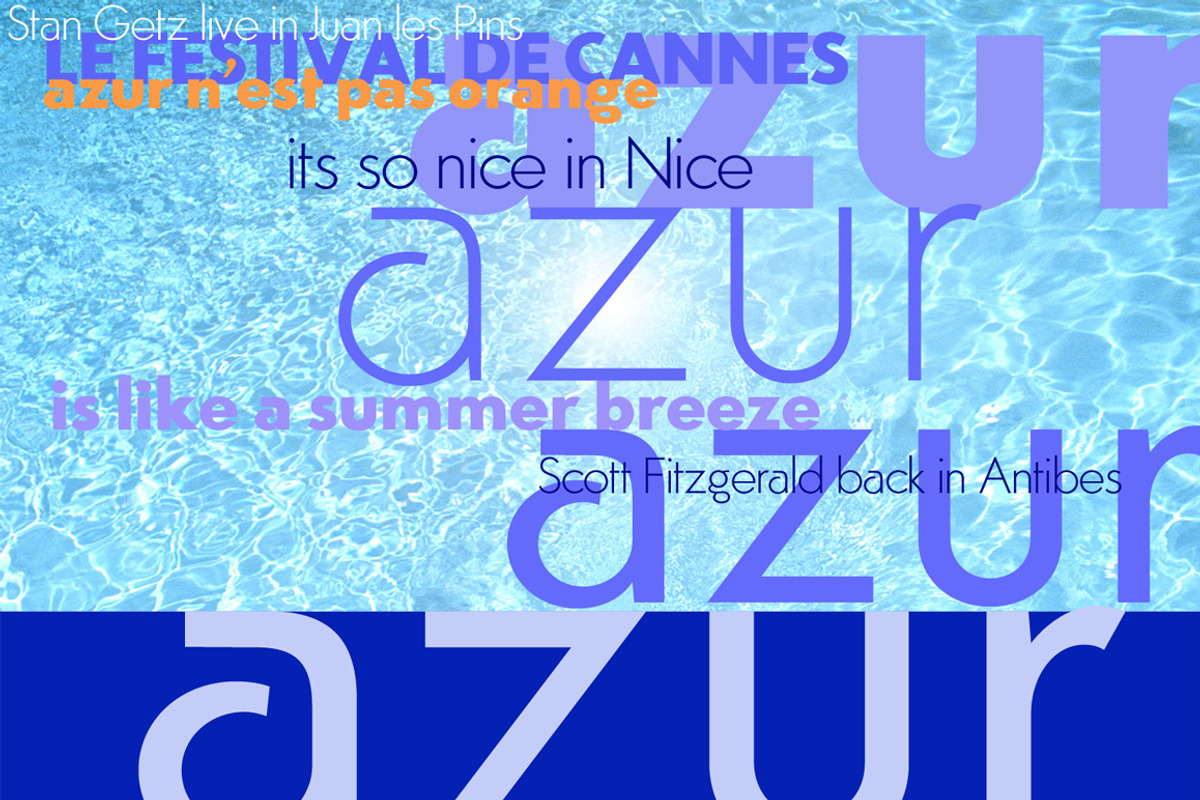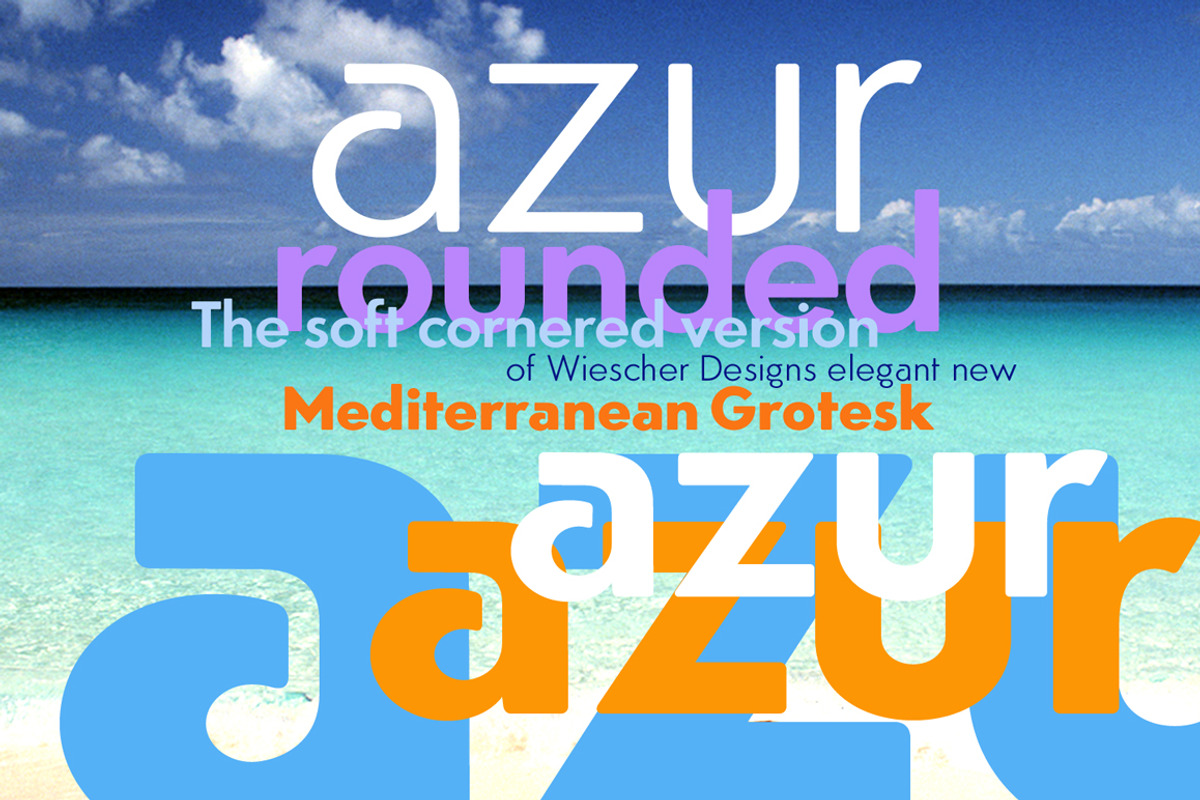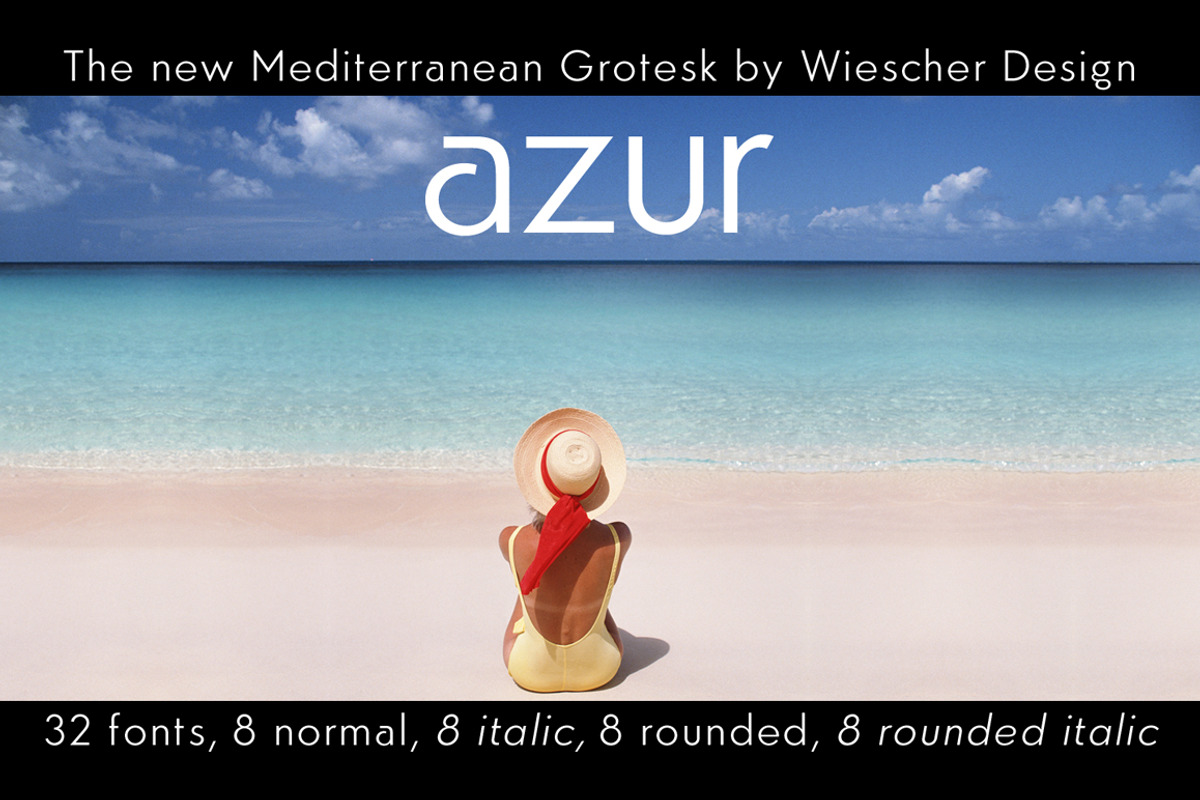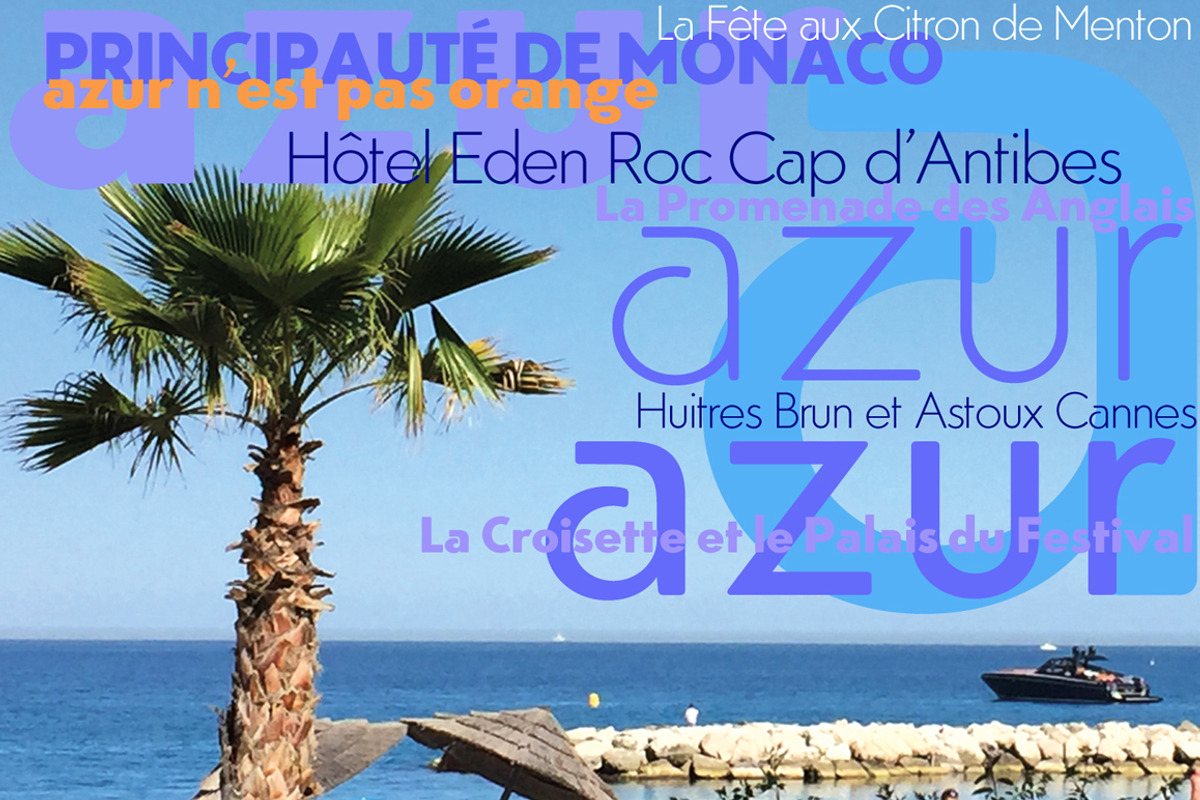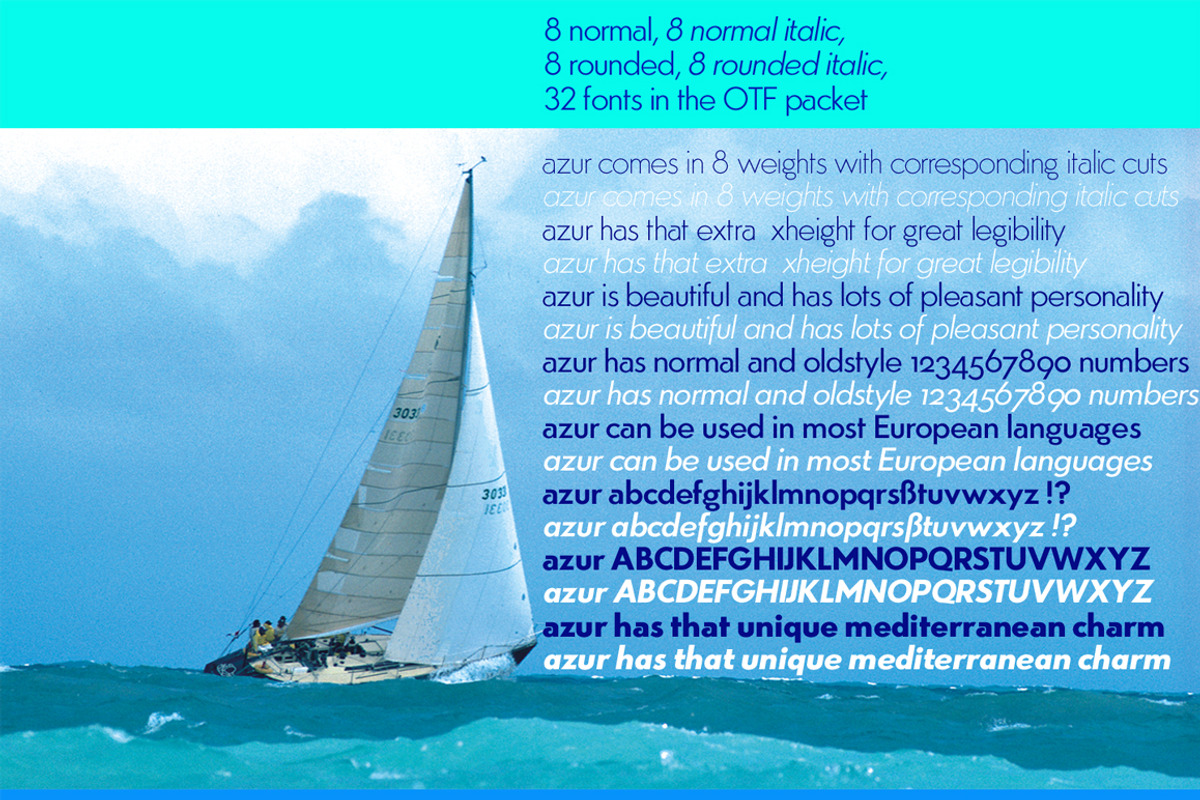
Azur Fonts
»Azur« is my homage to the beautiful Côte d’Azur and the Provence Alpes Maritime Region. Scott Fitzgerald loved it in Antibes, Juan les Pins is famous for its Jazz, Cannes has that phantastic film festival and Monaco gets noisy during the Grand Prix. This is the most celebrated part of the Mediterranean. Classic proportions with a few special letterforms here and there to give the font its unique, charming, Mediteranean character. Some ligatures and old style figures complete the sets. I added a soft cornered rounded version to make it an even friendlier typeface. Of course there are real italic sets to make things complete. The packet contains 32 fonts as OTF files and 32 EOT, 32 WOFF and 32 WOFF2 files each for internet use. Enjoy!